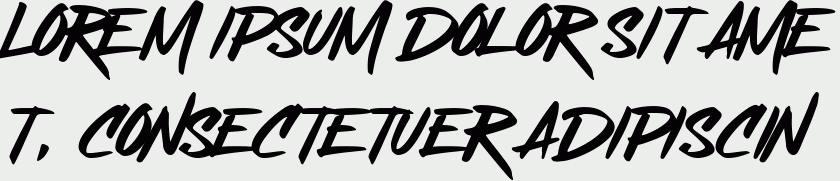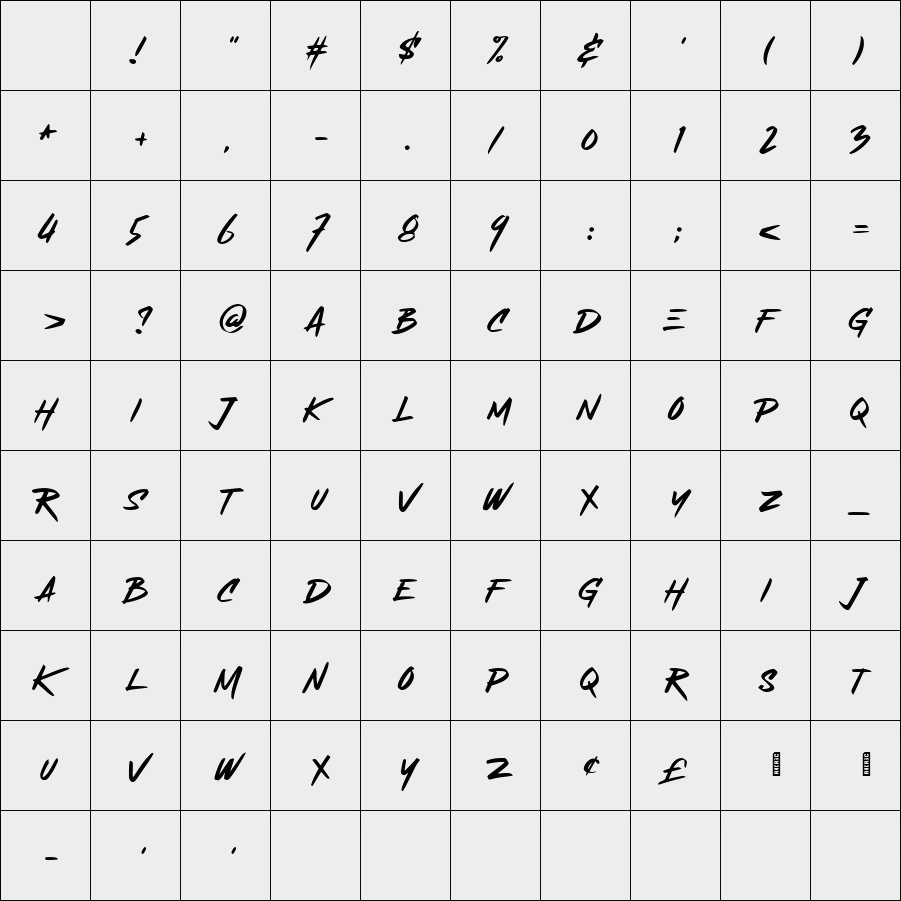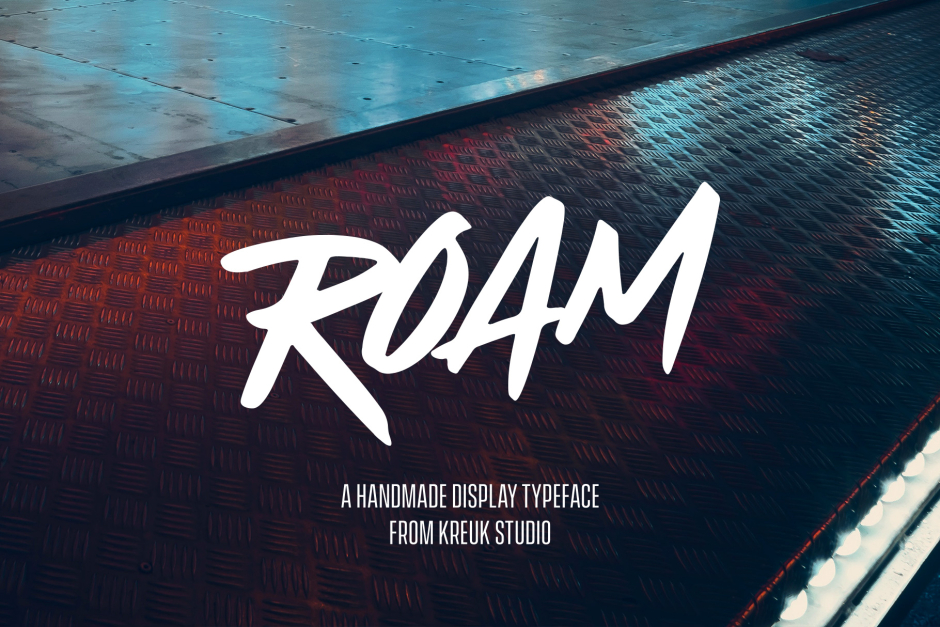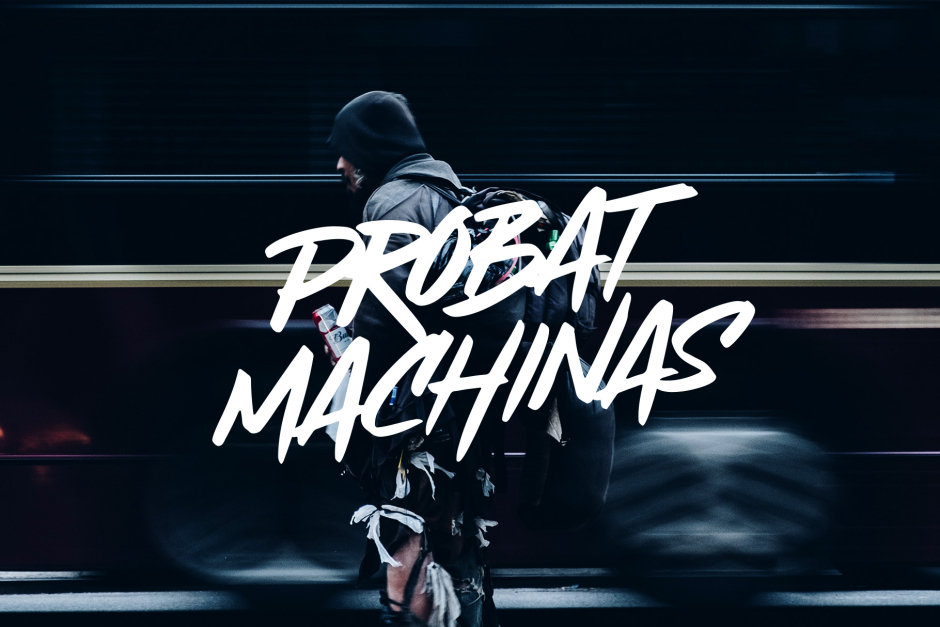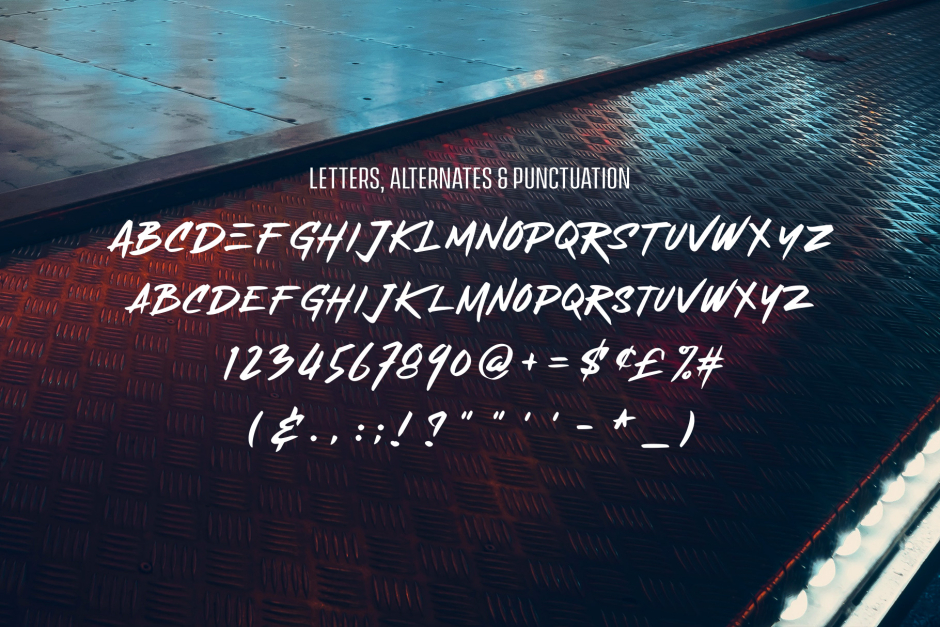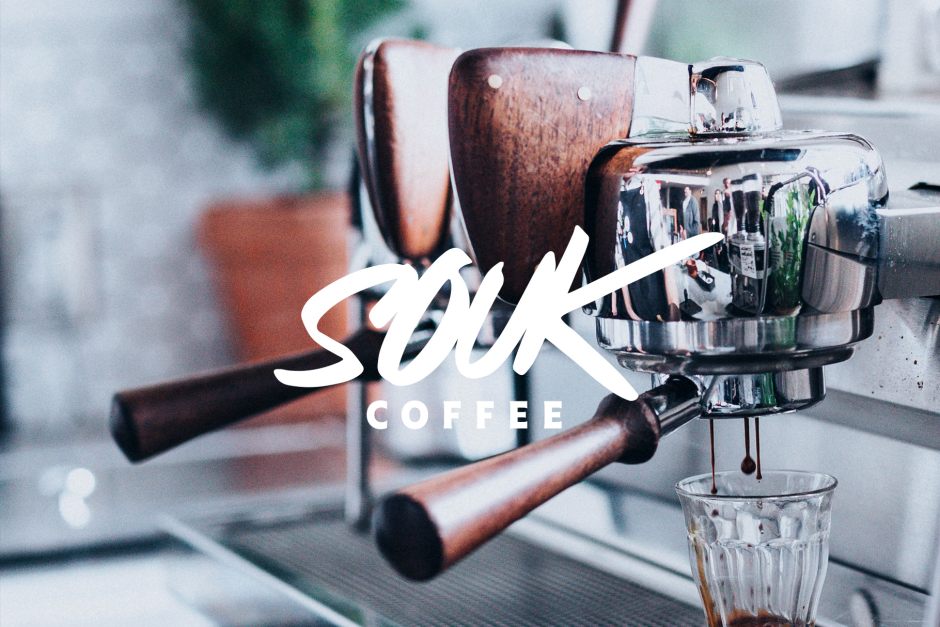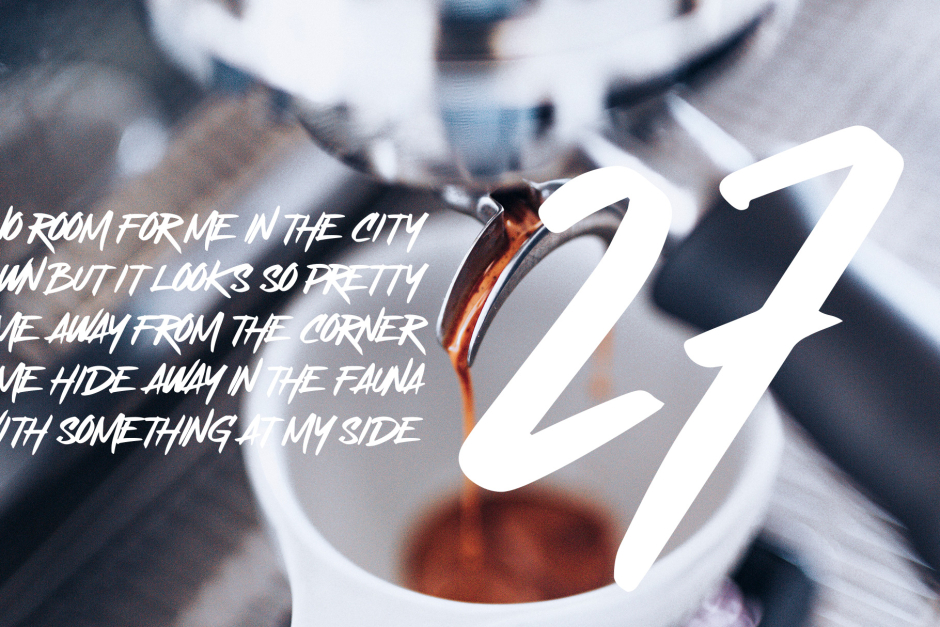
Roam
Roam is a handmade display font with fun thick brush impression at a glance. Brush inspired display with strong, catchy & striking form display. Roam ideally suited for headline tittle, logo, branding, posters etc.